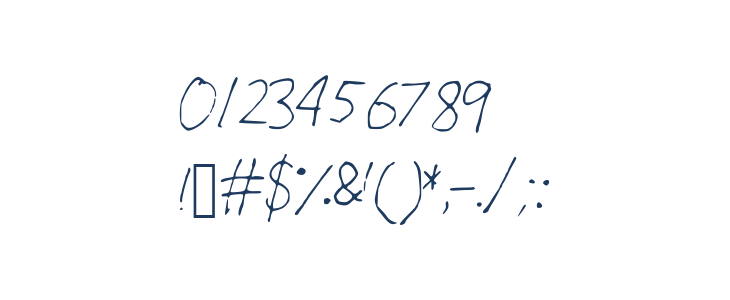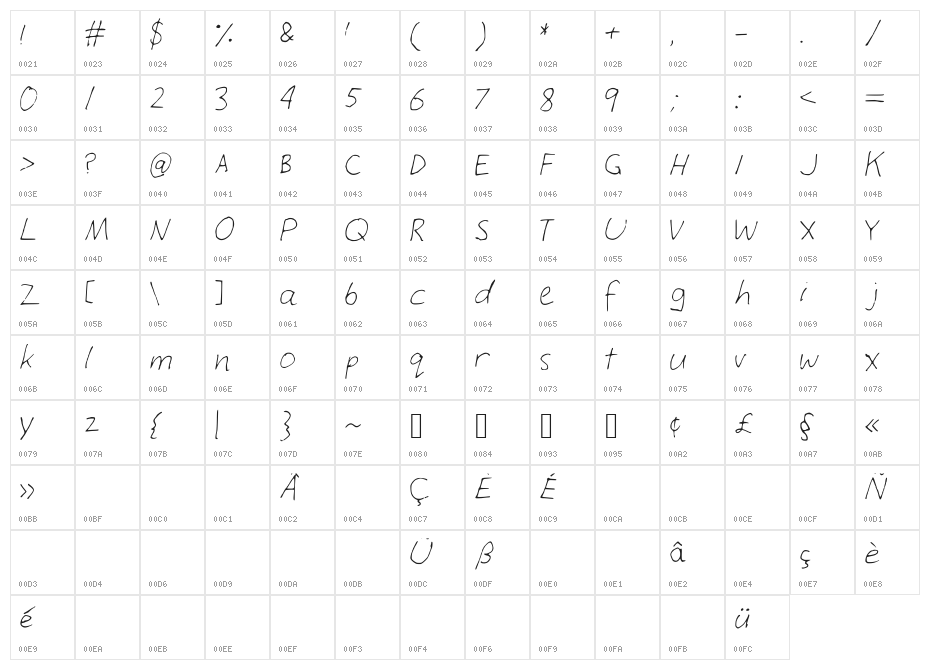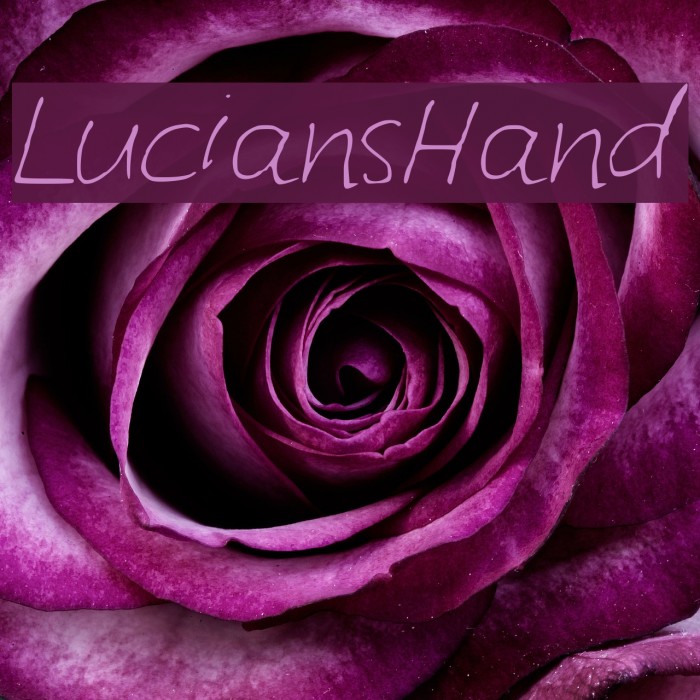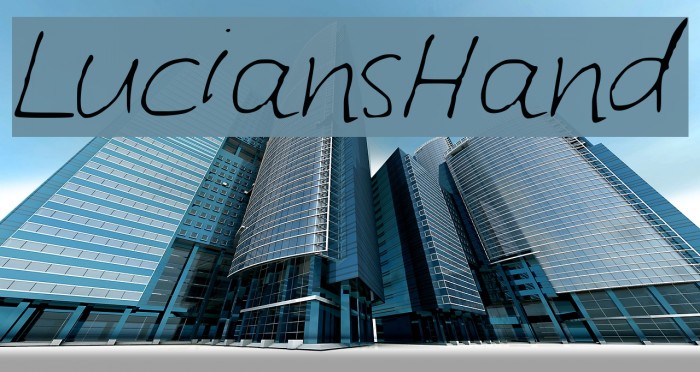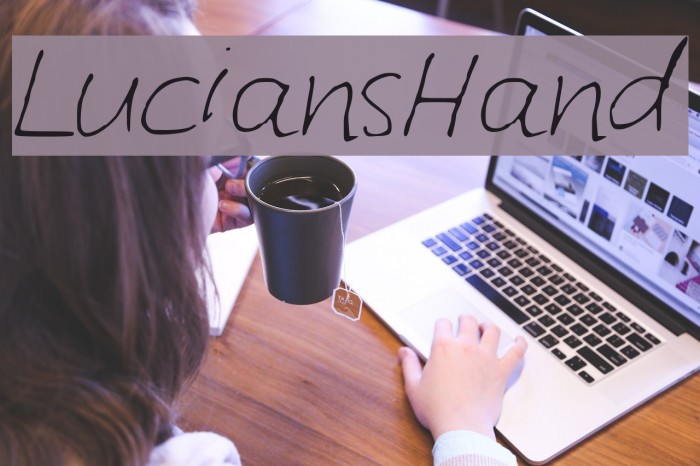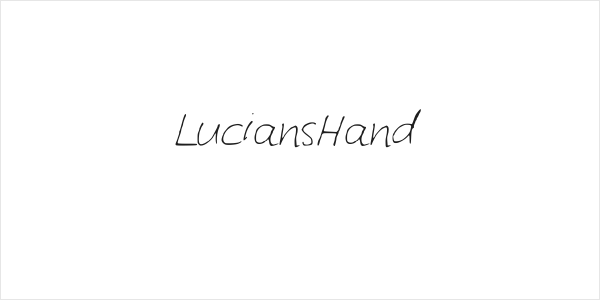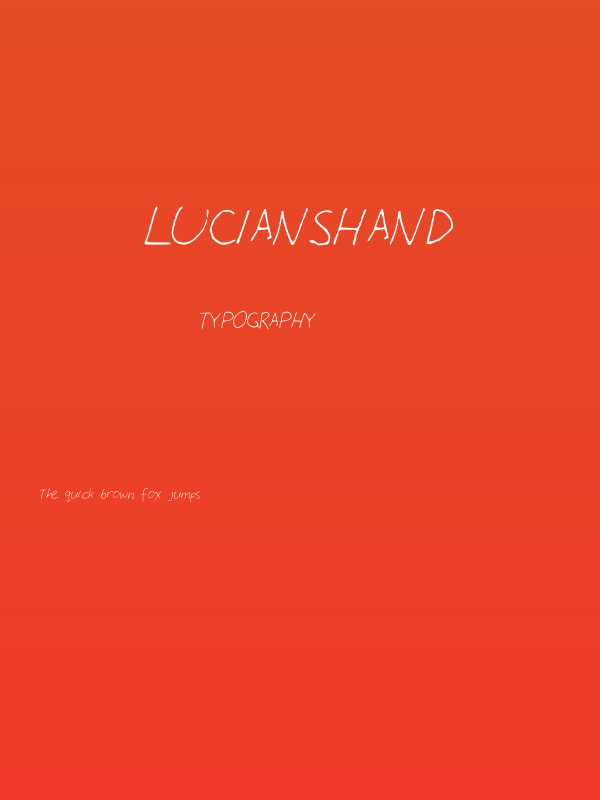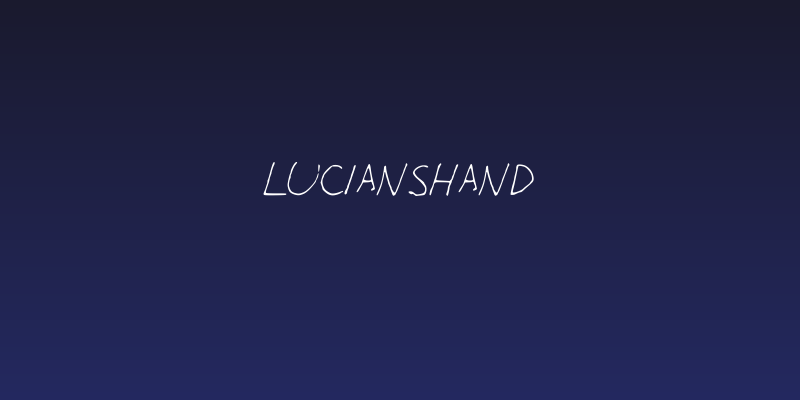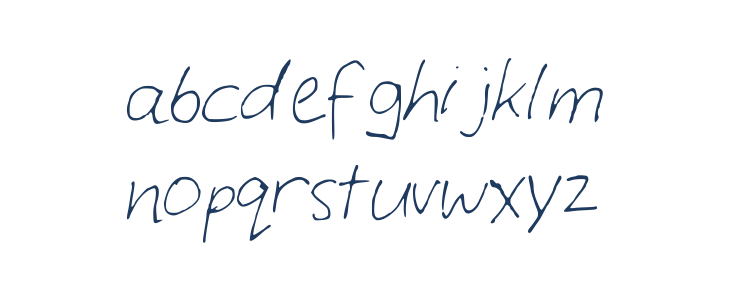
LuciansHand Font
LuciansHand Description
This font exudes a casual, handwritten style, capturing the essence of personal penmanship with its fluid and slightly irregular strokes. The characters are crafted with a natural flow, giving an impression of spontaneity and authenticity. Uppercase letters maintain a consistent height, while lowercase letters vary slightly, adding to the organic feel. The numerals are clear and distinct, complementing the overall informal aesthetic. Special characters are well-integrated, maintaining the handwritten theme. This font is perfect for projects that require a personal touch, such as invitations, greeting cards, or any design that aims to convey warmth and approachability.
| Use Case | Logos, Headlines, Informal text |
| Proposed Projects | Ideal for personal invitations, greeting cards, and informal branding. |